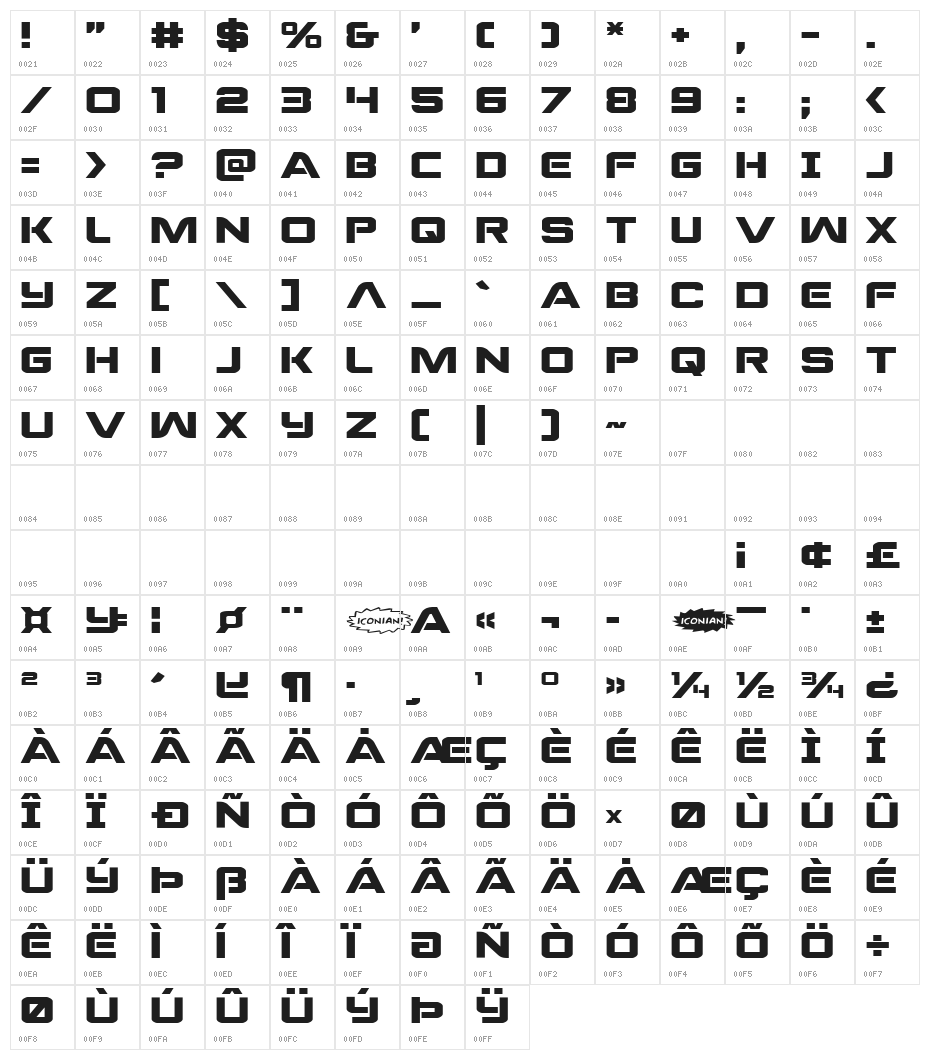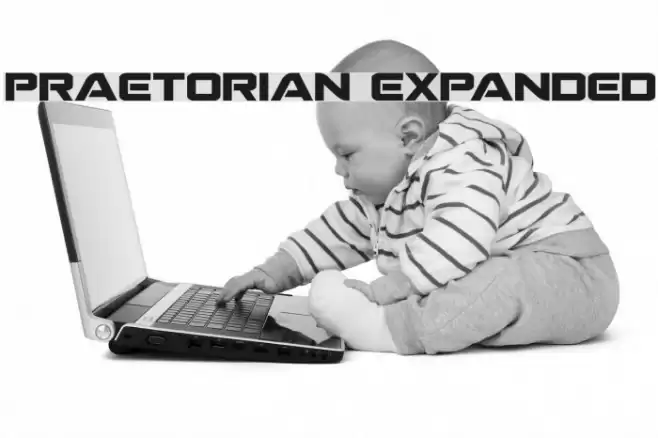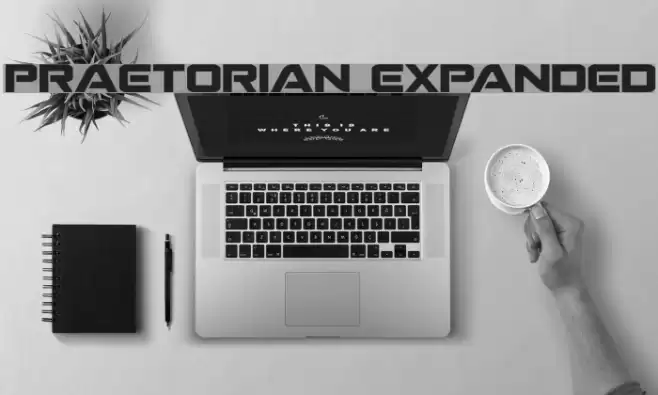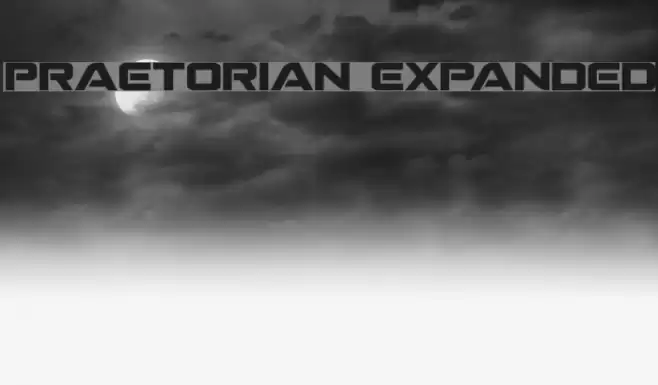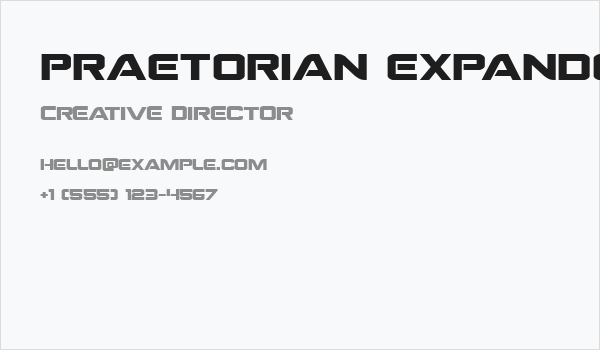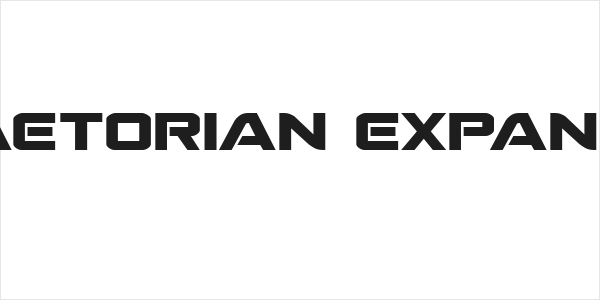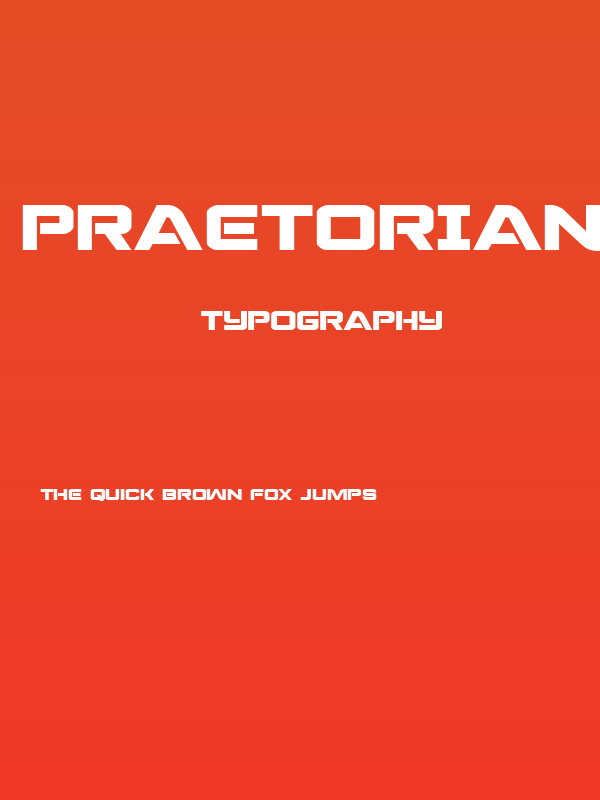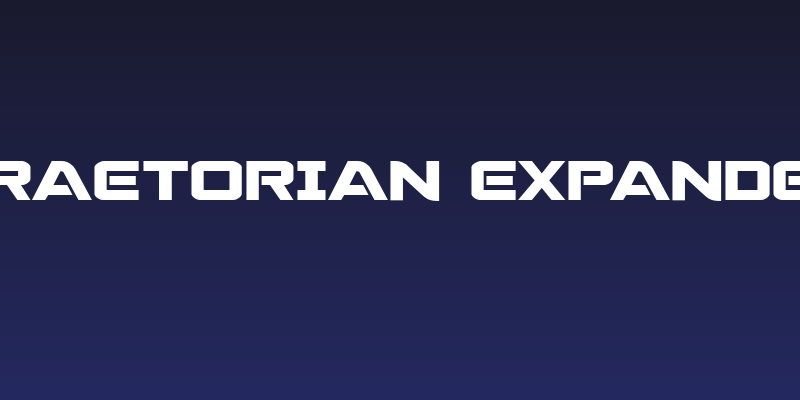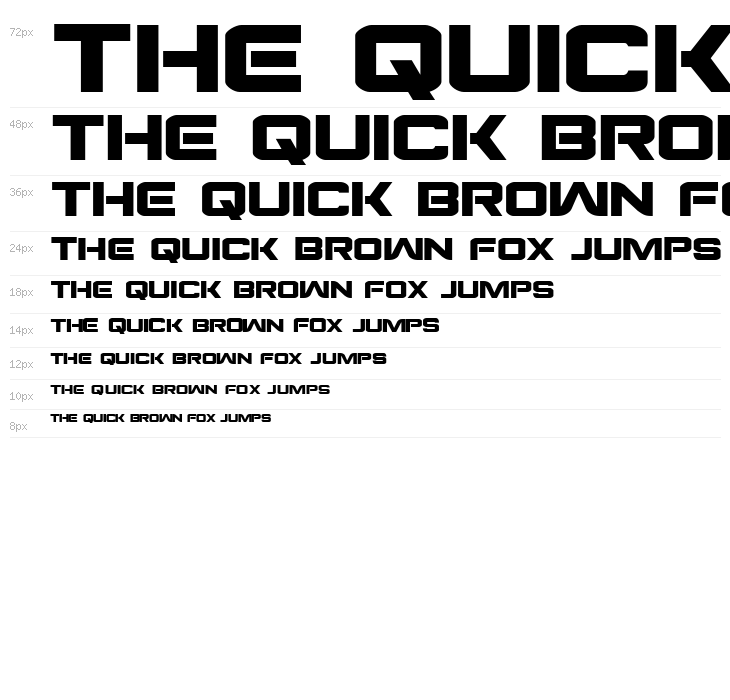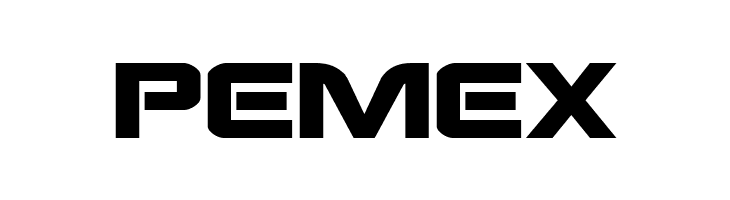
Praetorian Expanded Font
Praetorian Expanded Description
This font features a bold, geometric design with a distinctly modern and futuristic aesthetic. Its expanded width gives it a commanding presence, making it ideal for attention-grabbing headlines and logos. The characters are constructed with sharp angles and clean lines, providing a sense of precision and strength. The uniform stroke width throughout the font contributes to its bold appearance, while the wide character spacing enhances readability. This font's style is particularly suited for projects that require a strong, impactful visual statement.